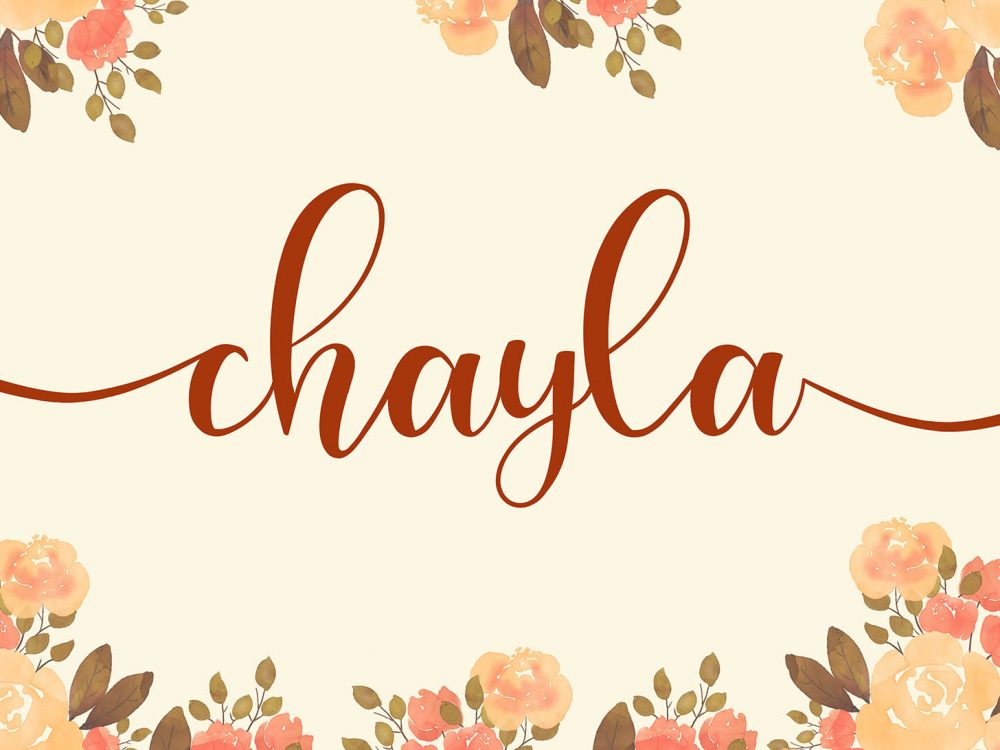
Chayla Free Font
Chayla Free Font is an interesting script typeface that features a modern calligraphic style. This font is very suitable for creating various projects that require a scripted handwritten font. You can use this font to create memorable romantic posters, wedding invitations, greeting cards, branding, flyers, t-shirt and pillow prints, and more. If you like it don’t forget to check out the full version.